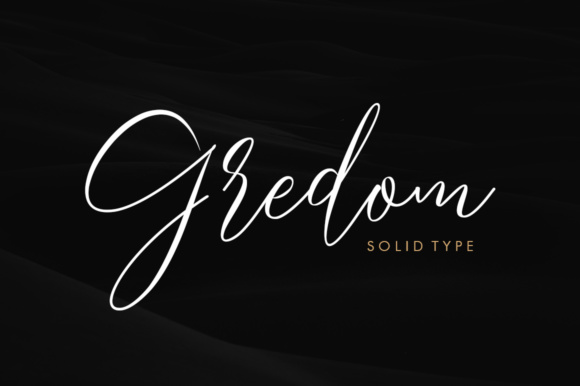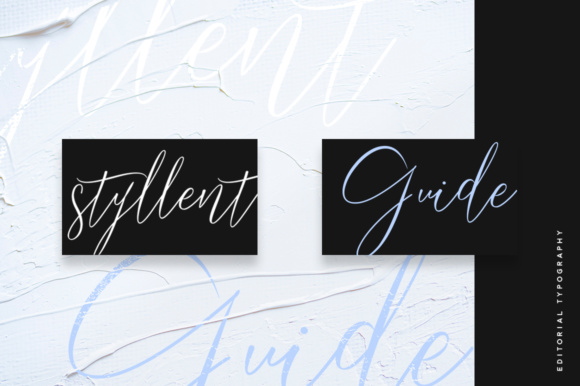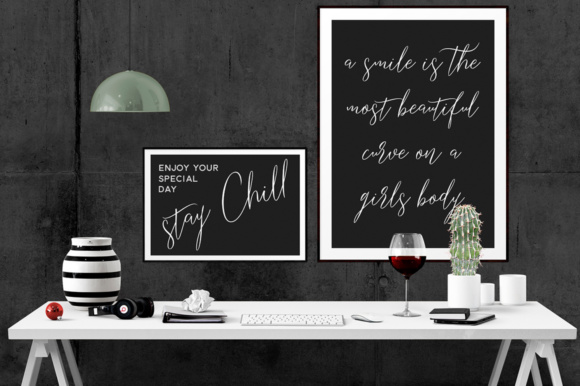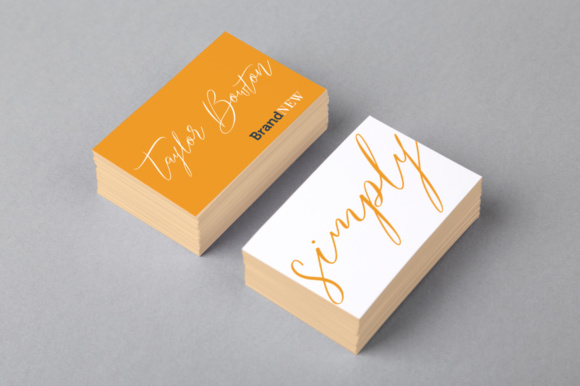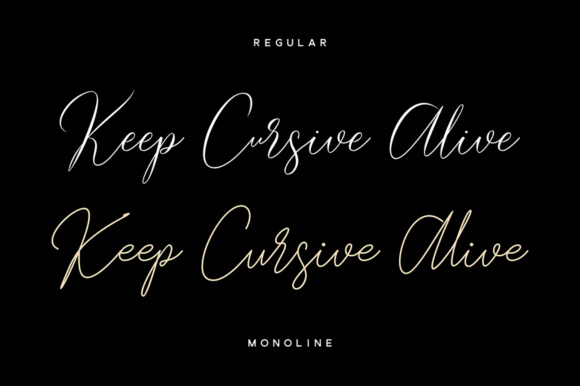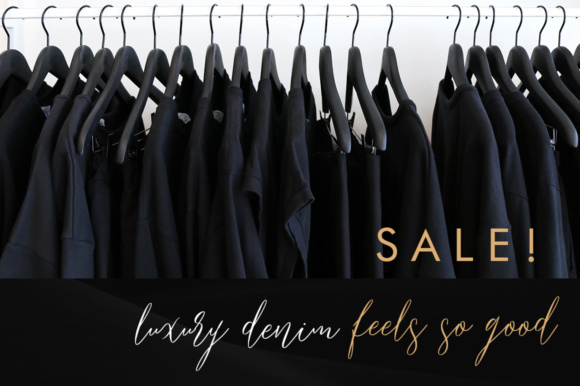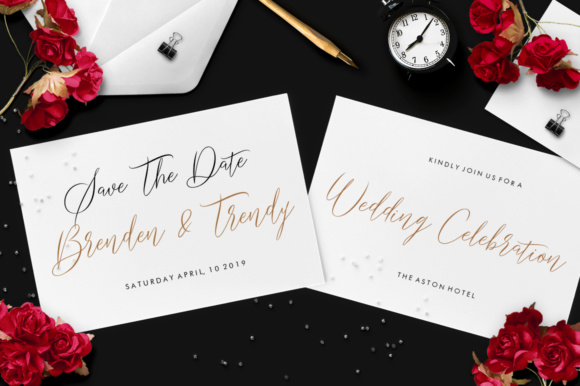
Gredom Script Font
About Gredom Script Font
The Gredom is a gorgeous and simple handwritten script. It’s contemporary and fashionable.
This elegant font is legible and looks great as a headline or in a body text.